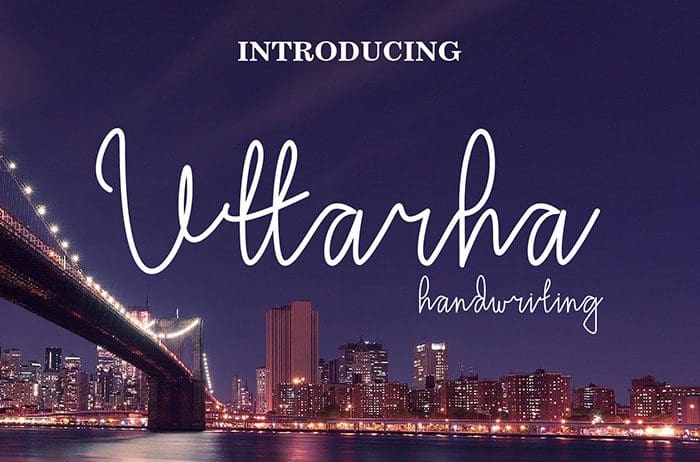
Free Uttarha Handwritten Font
Uttarha Handwritten Font
Free Uttarha Handwritten font is a cute and casual with an incredibly friendly feel. It features gorgeous swashes and ligatures that make this script incredibly versatile. This font is available only for personal use. Created this font by Jprint Studio. You can also search more freeĀ Fonts.